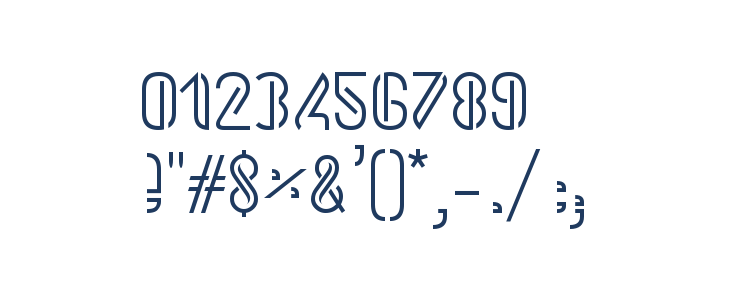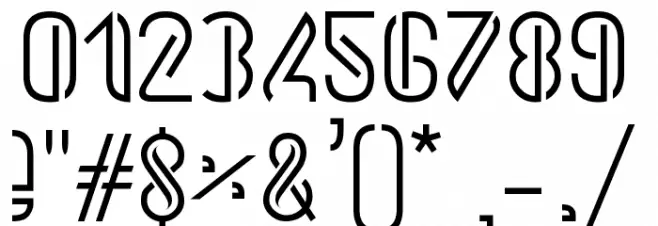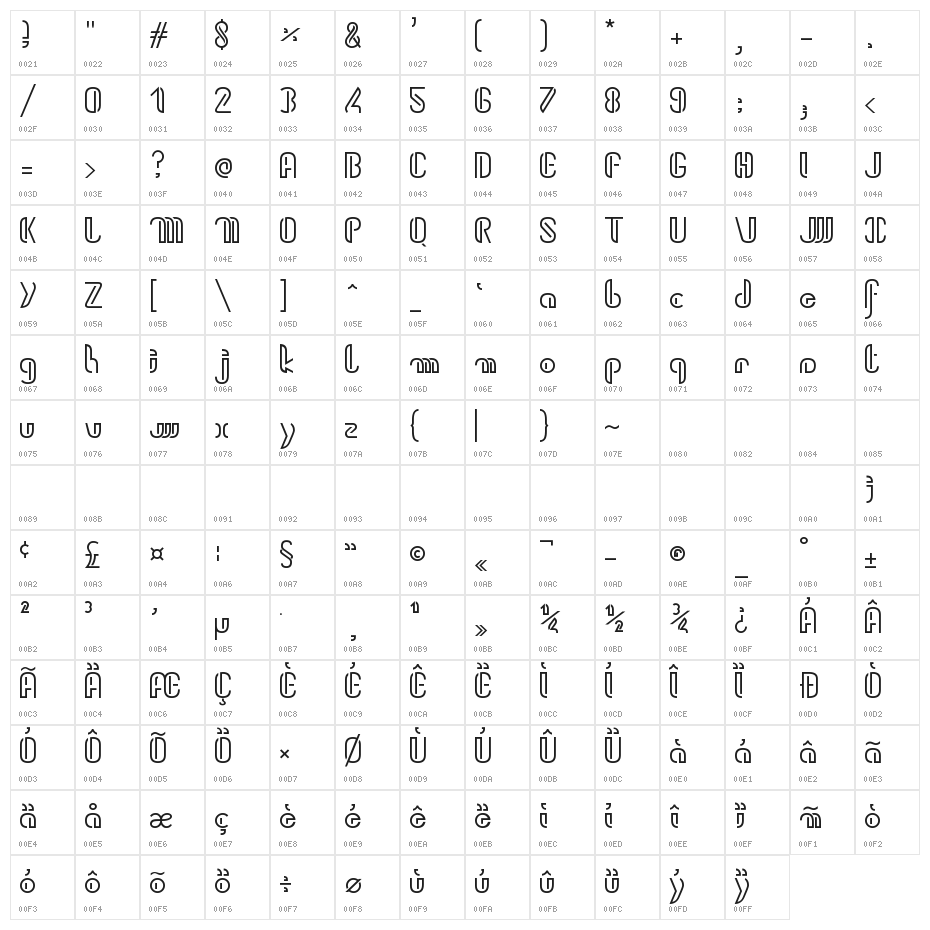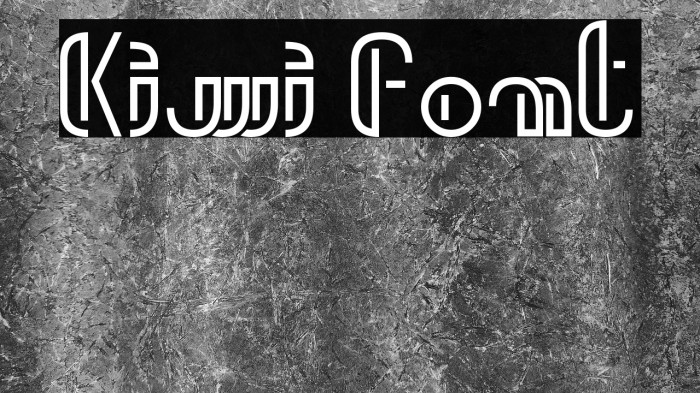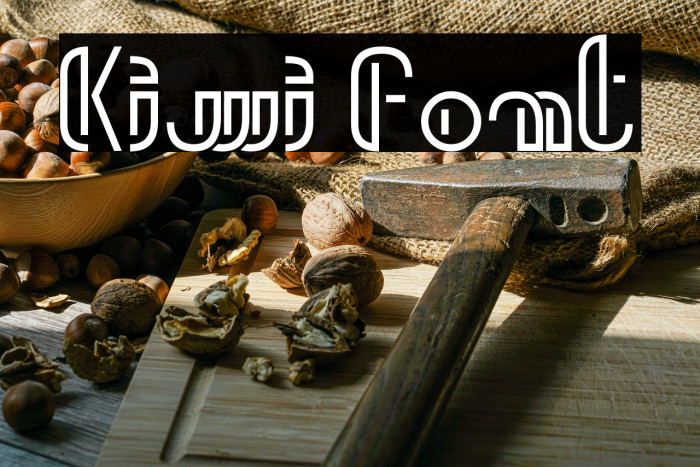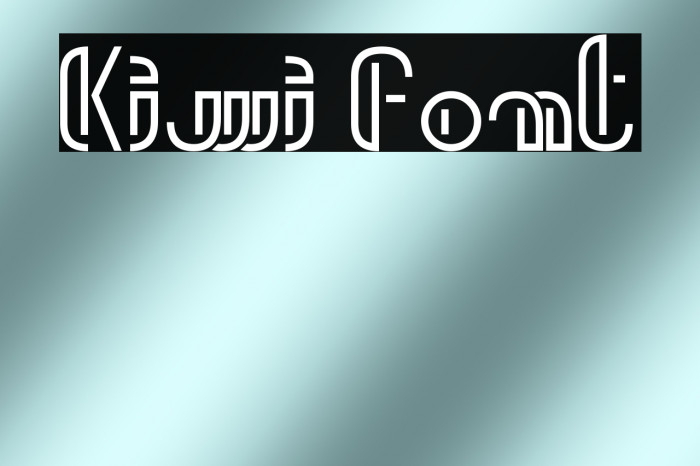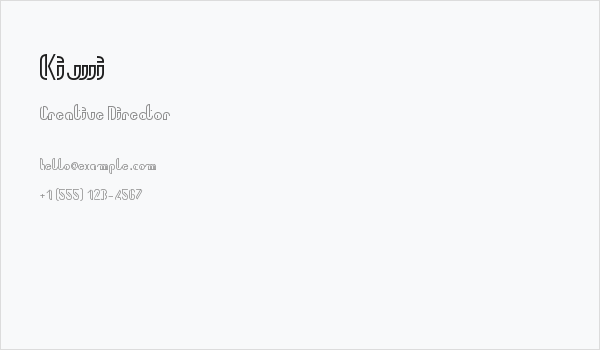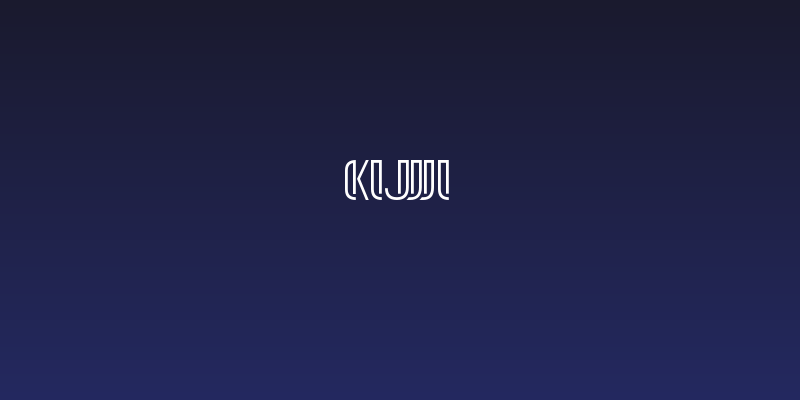
Kiwi Font
Kiwi Description
This font features a unique, modern design with a geometric and futuristic aesthetic. The characters are constructed with bold, clean lines and a distinct use of negative space, creating an eye-catching and innovative look. The uppercase and lowercase letters maintain a consistent style, with rounded edges and a uniform stroke width that adds to the overall sleek appearance. The numerals and special characters follow the same design principles, ensuring a cohesive visual identity across all elements. This font's distinctive style makes it ideal for projects that require a contemporary and forward-thinking approach.
Use CaseLogos, Headlines, Branding
Proposed ProjectsIdeal for branding, advertising, and digital media projects that aim for a modern and futuristic look.